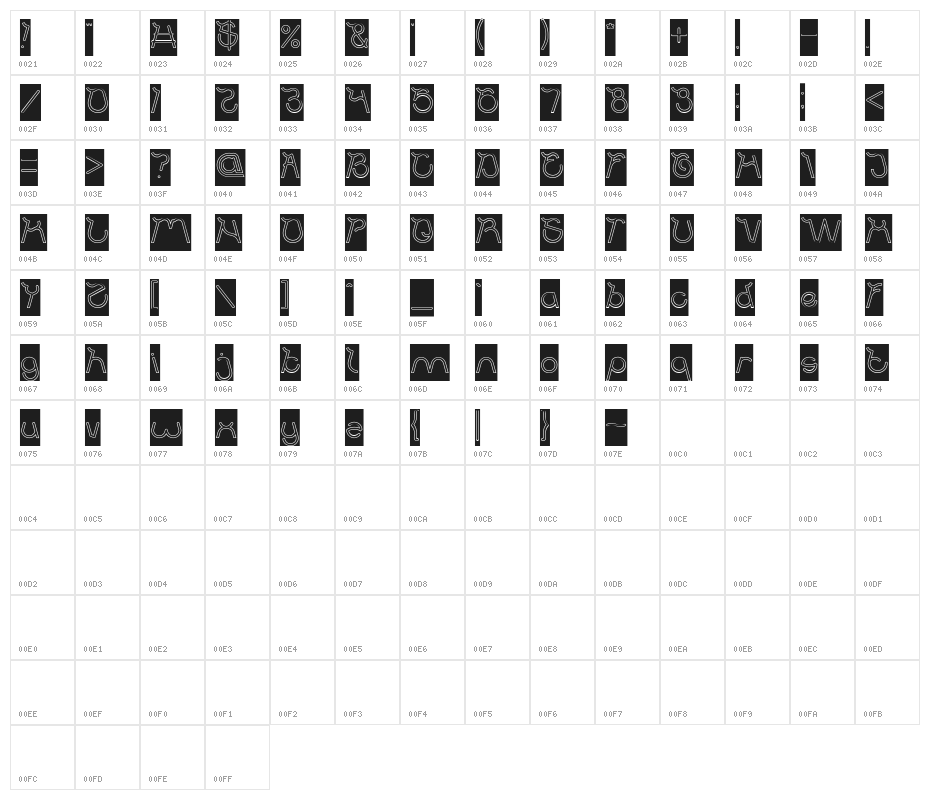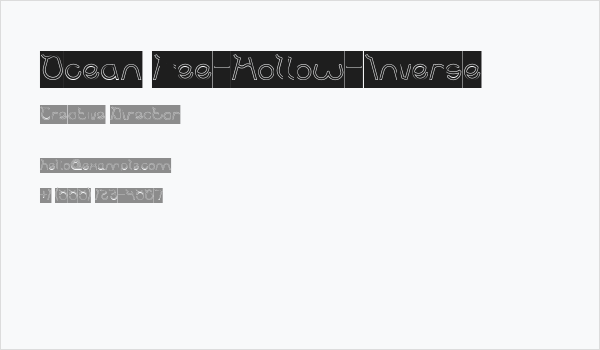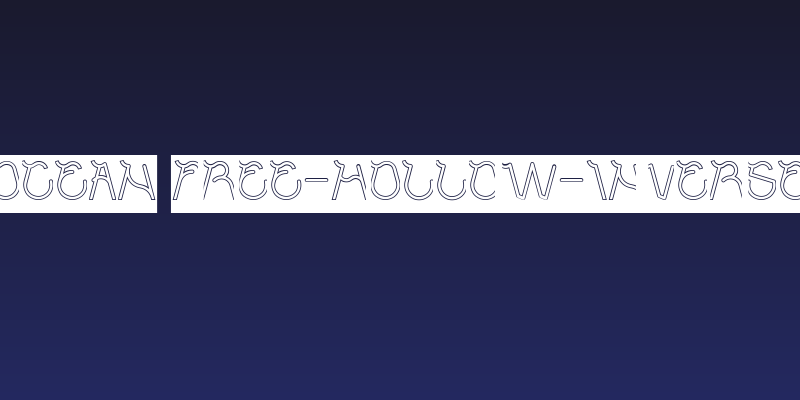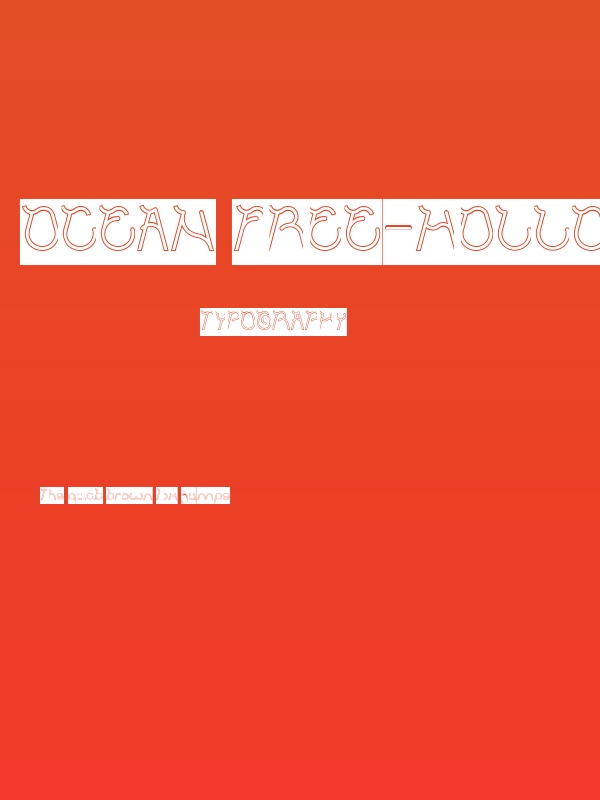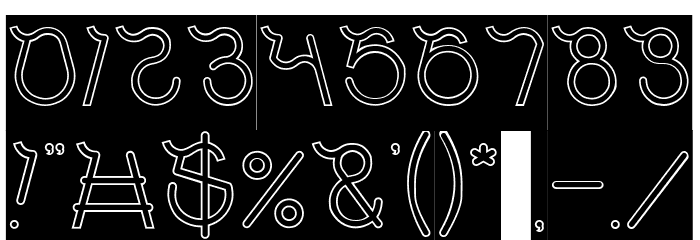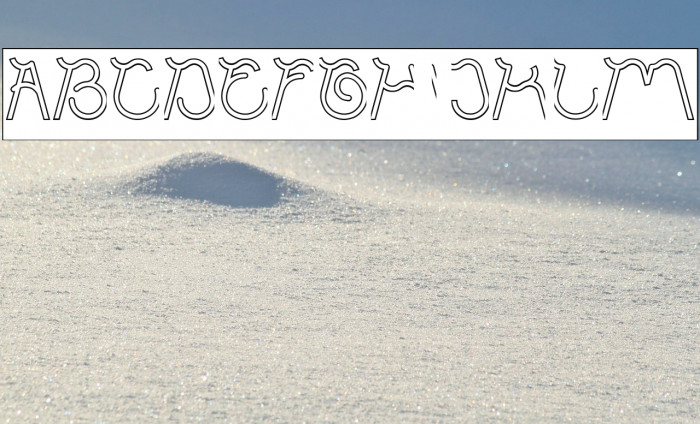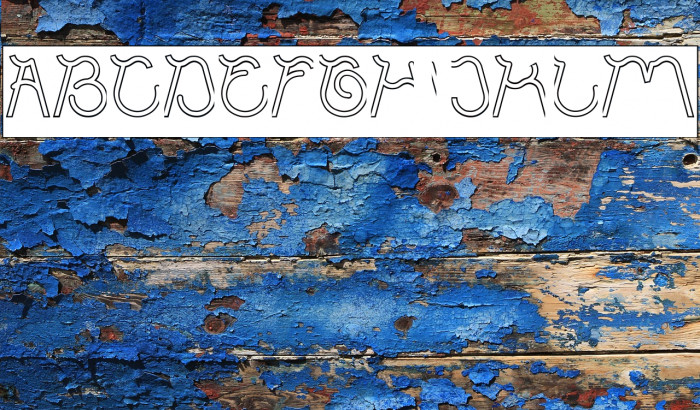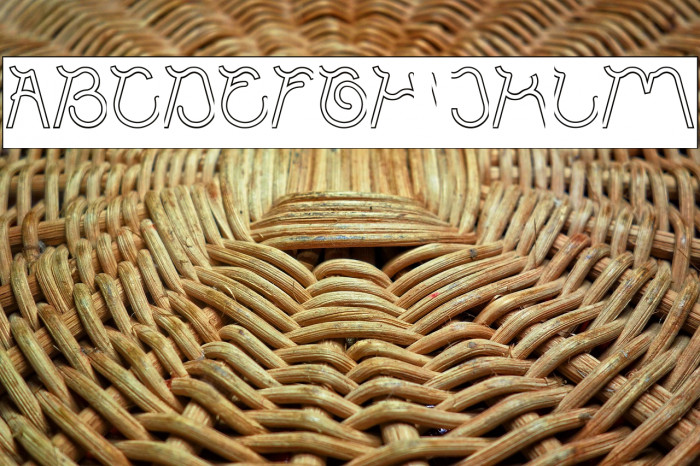
Ocean Free-Hollow-Inverse Font
Ocean Free-Hollow-Inverse Description
This font features a unique hollow design with an inverse style, where the outlines of each character are emphasized, creating a striking visual effect. The letters are crafted with smooth, flowing curves that give them a dynamic and playful appearance. The uppercase and lowercase letters maintain a consistent style, with a slight variation in size and form to distinguish them. Numbers and special characters are designed to match the overall aesthetic, ensuring a cohesive look across all text elements. The font's open and airy structure makes it ideal for creative projects that require a modern and artistic touch.
| Use Case | Logos, Posters, Artistic Designs |
| Proposed Projects | Ideal for creative projects such as posters, logos, and artistic designs that require a modern and unique touch. |